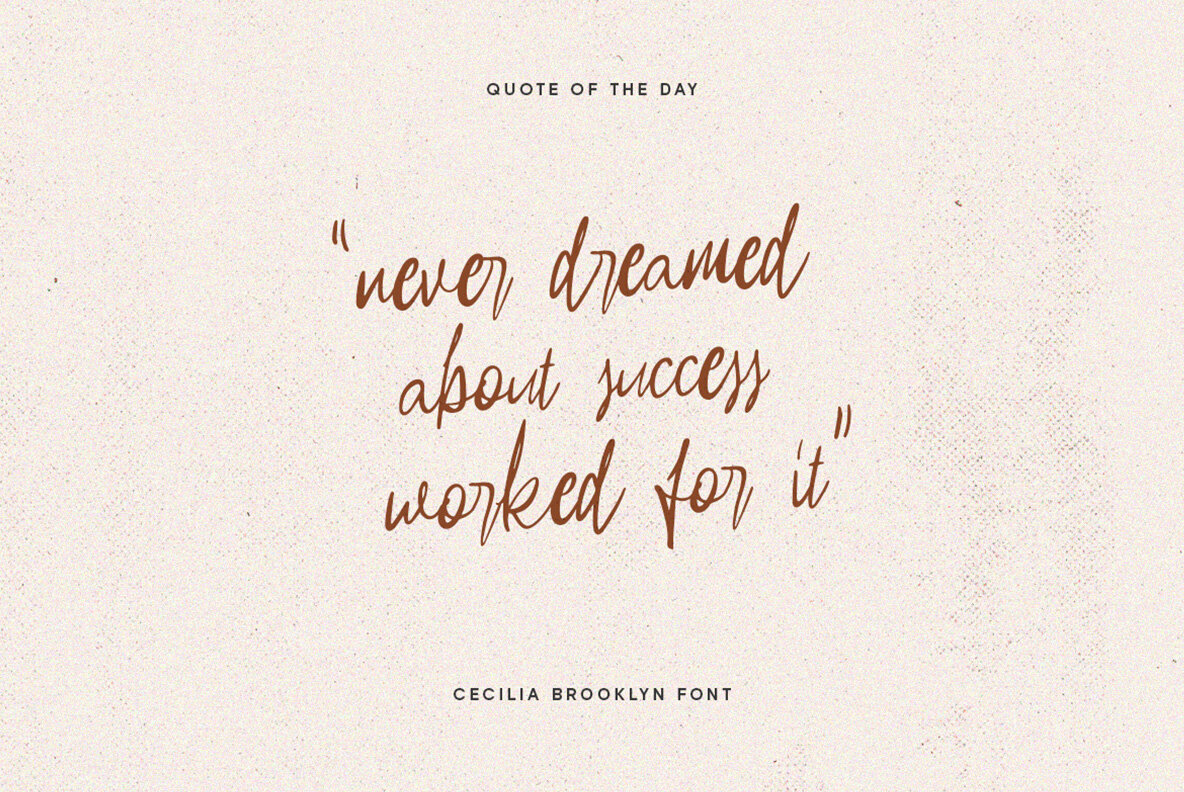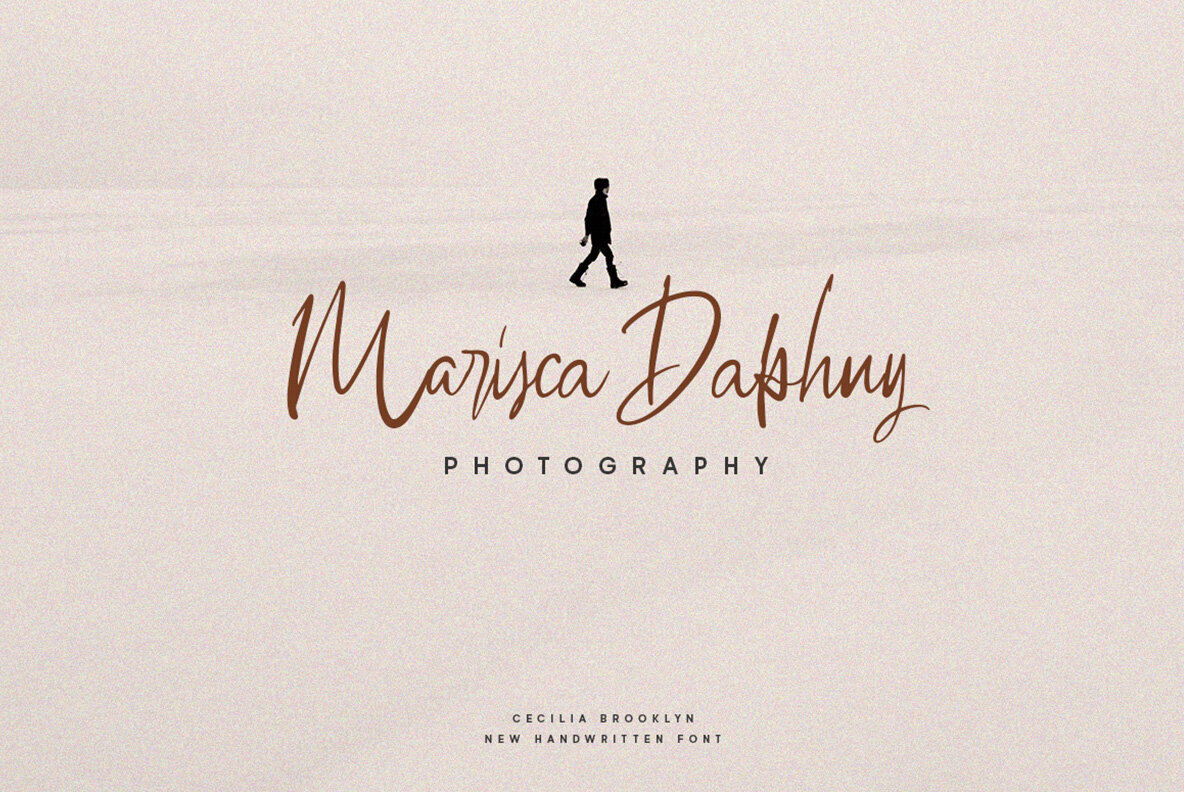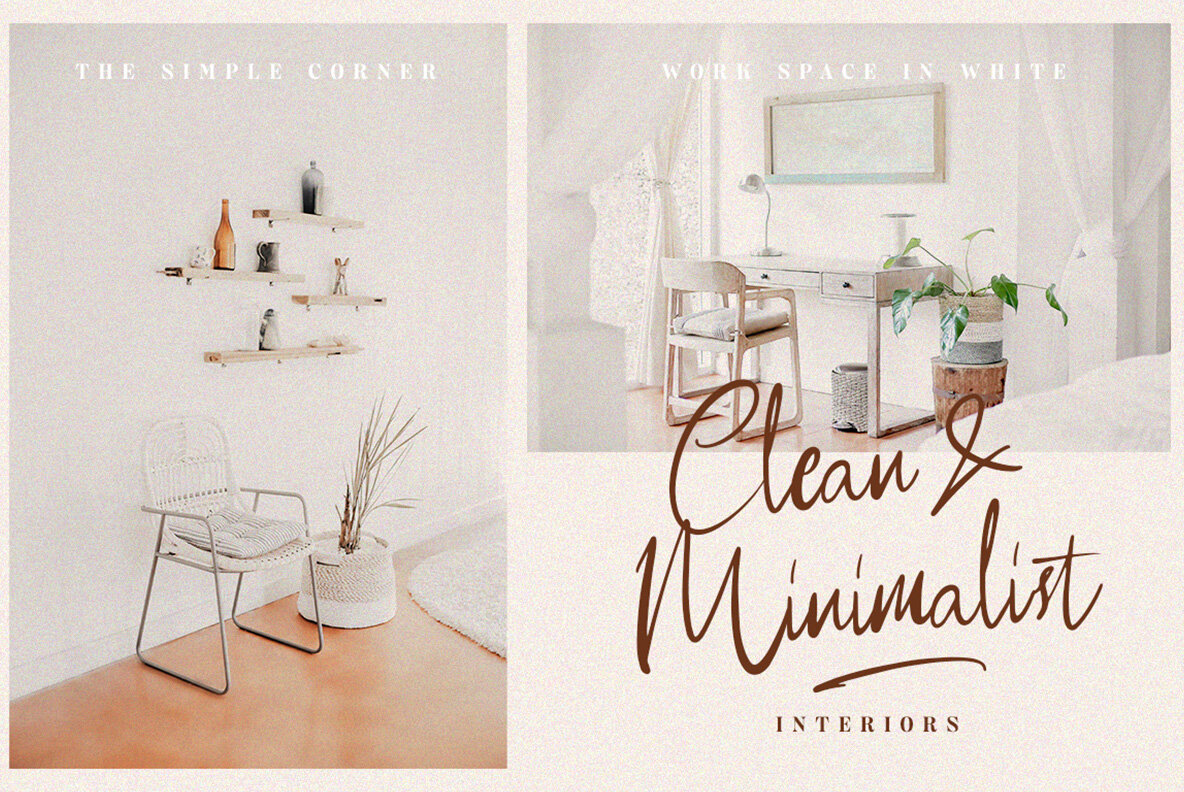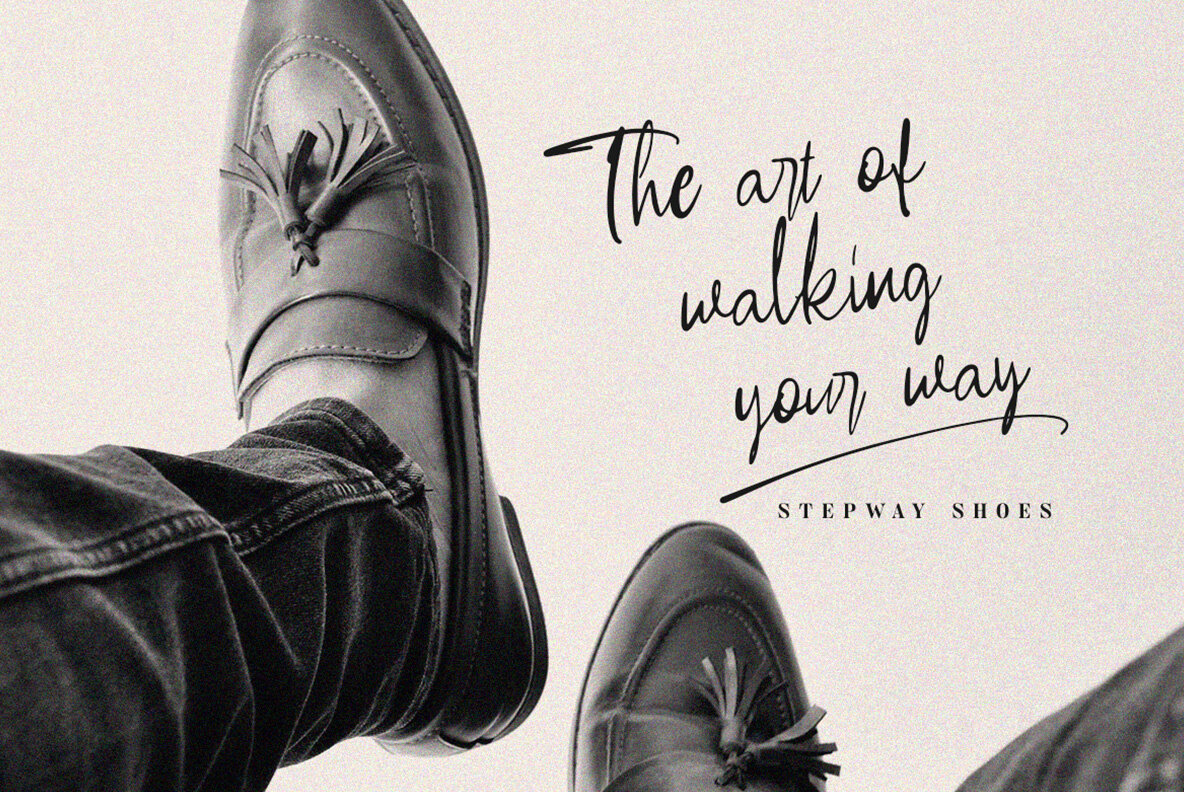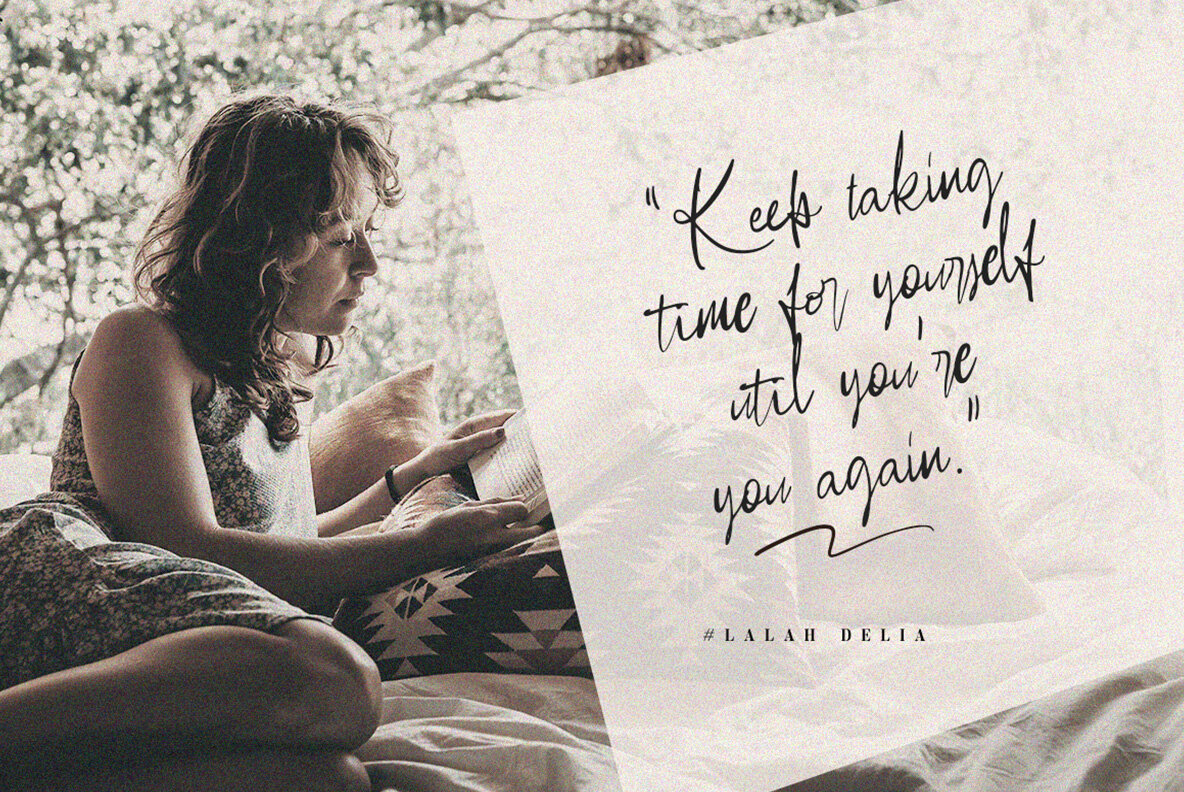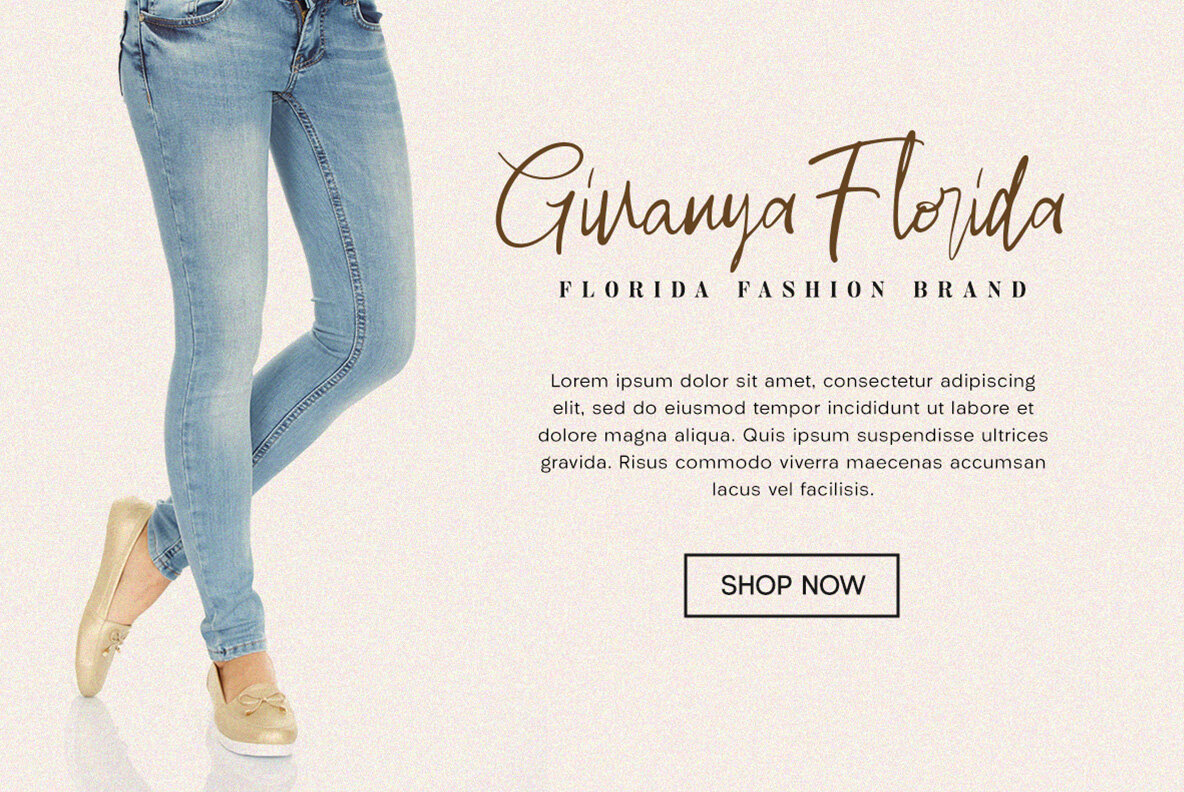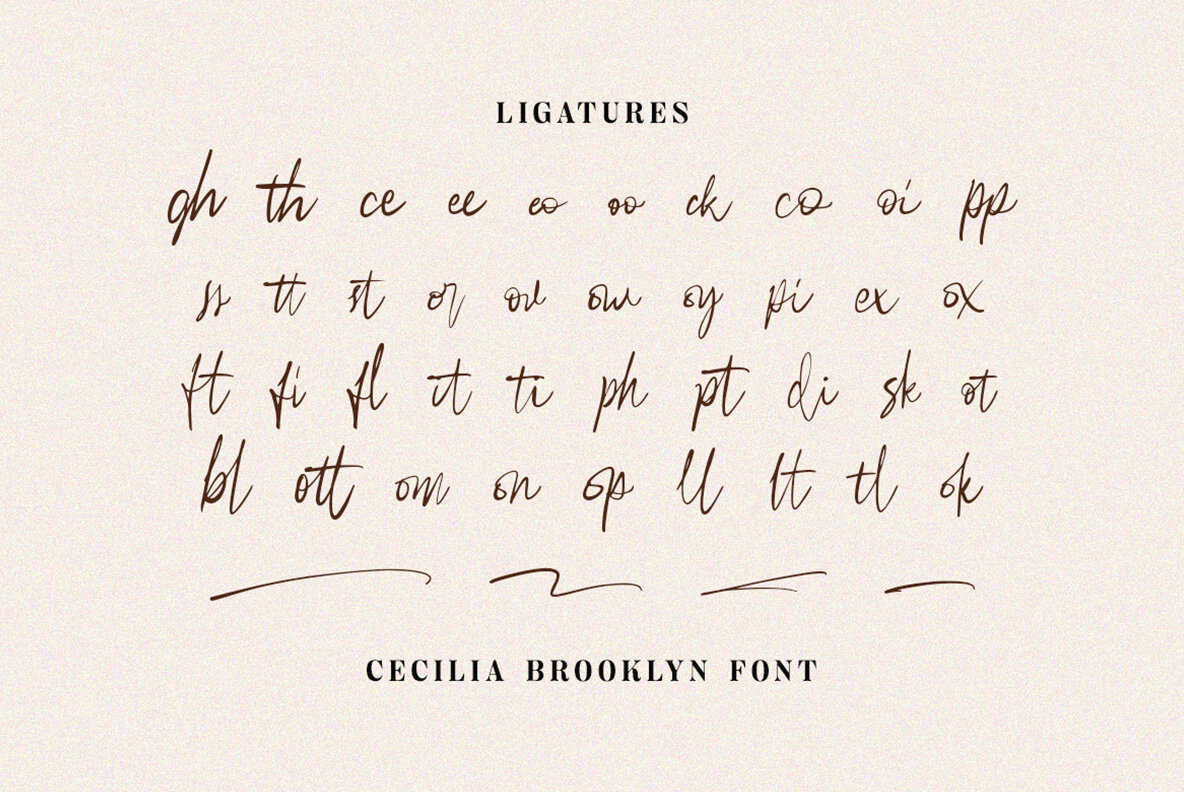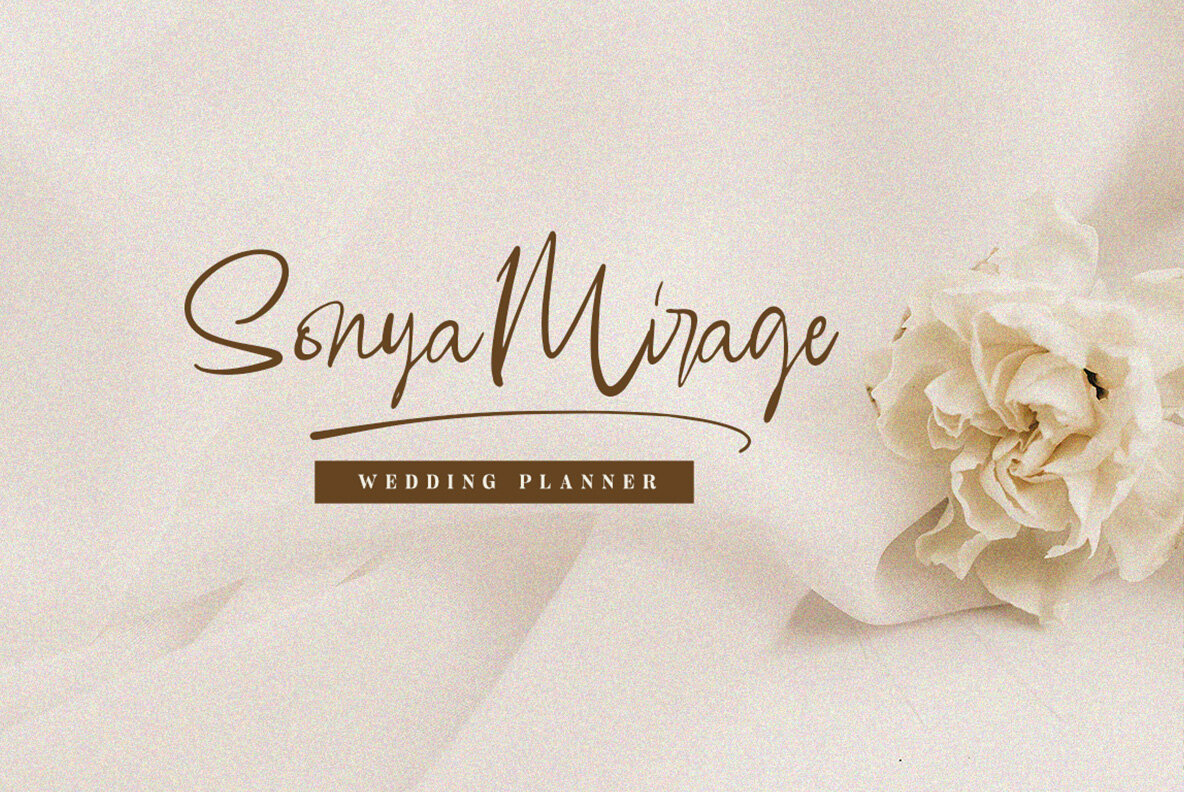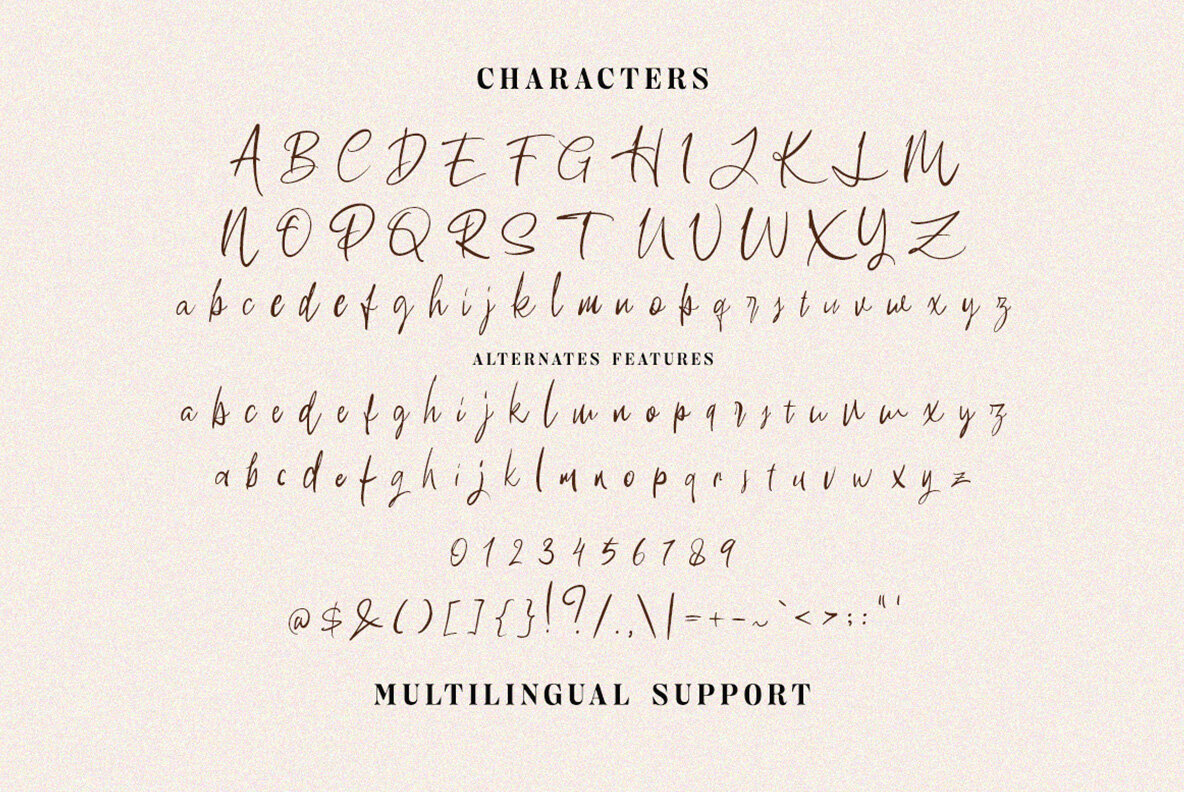
Cecilia Brooklyn Font
Cecilia Brooklyn by Letterhend Studio brings a touch of elegance to any project with its feminine signature style. Ideal for creating sophisticated logos, this script font is also well-suited for formal applications, including invitations, packaging, and elegant stationery, as well as magazines, greeting cards, and advertising endeavors. For the best experience, use software with OpenType features and Glyphs panels, such as Adobe applications and Corel Draw, to fully explore Cecilia Brooklyn's versatile character set.Cecilia Brooklyn: A Signature Script of Sophistication